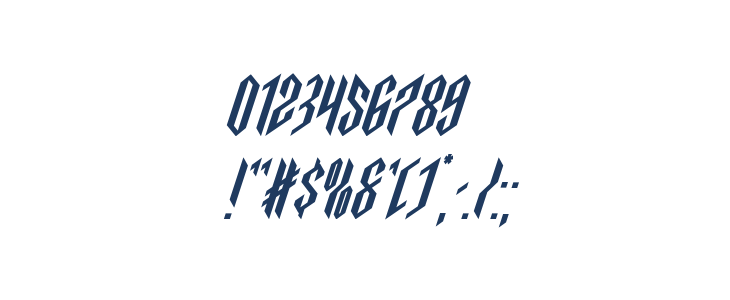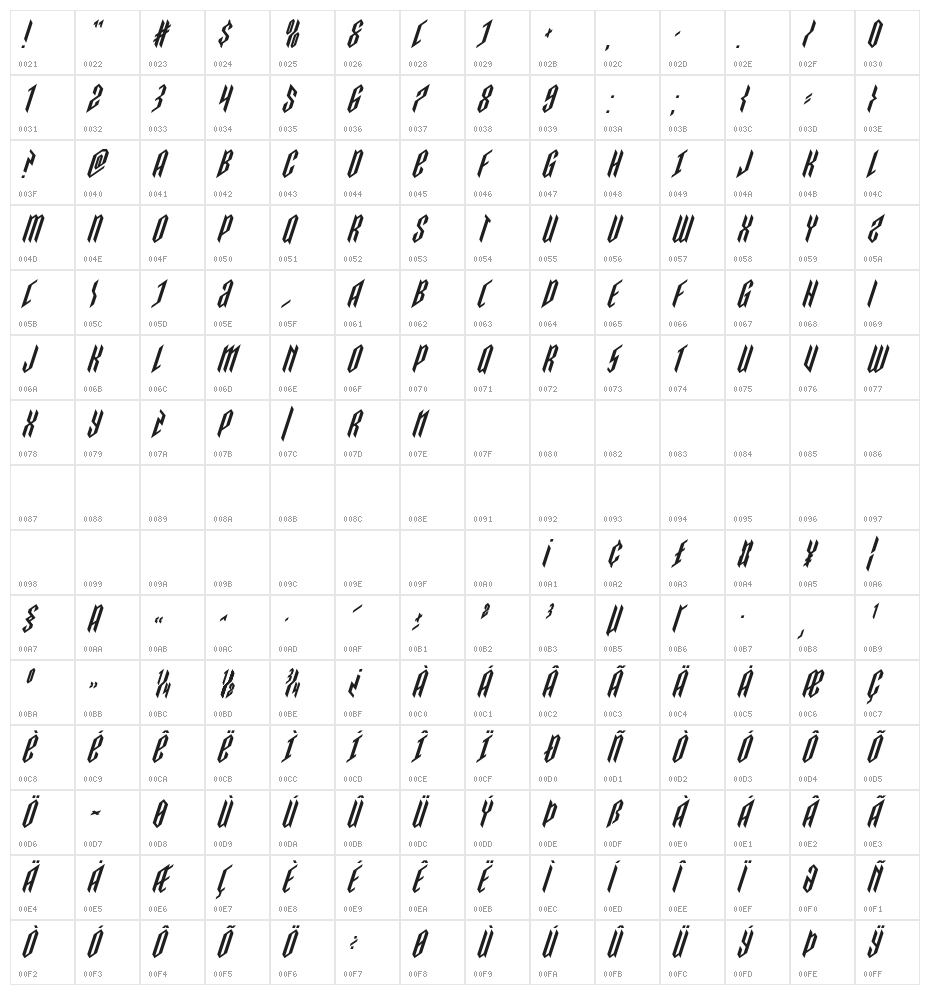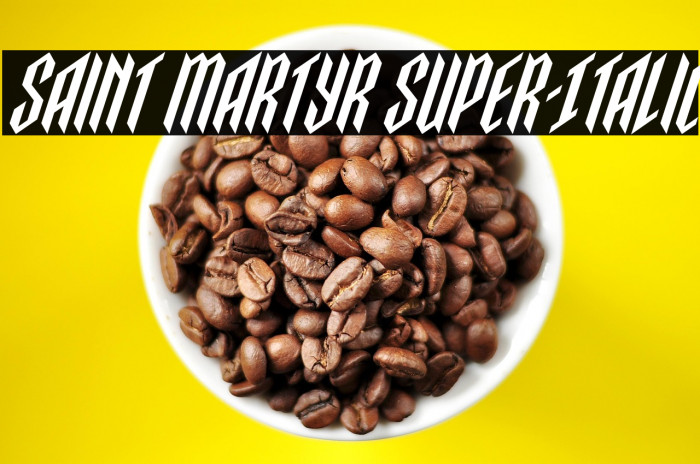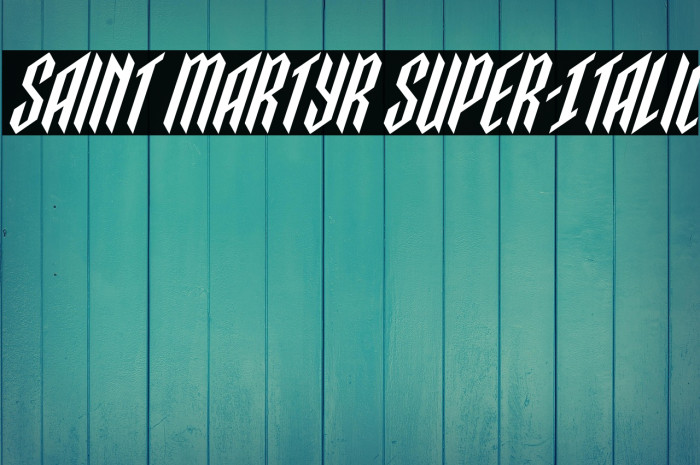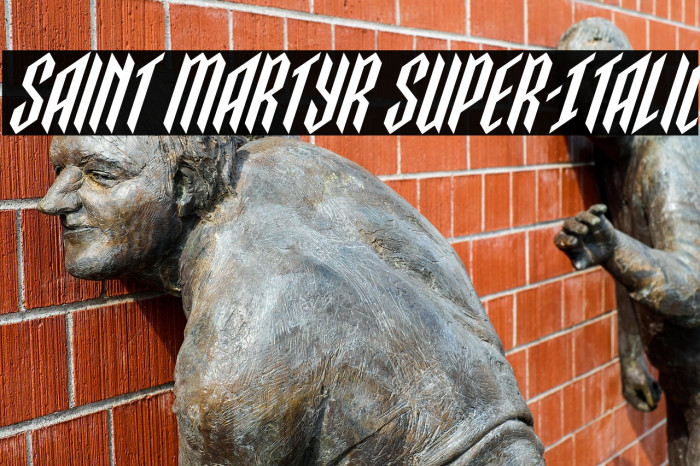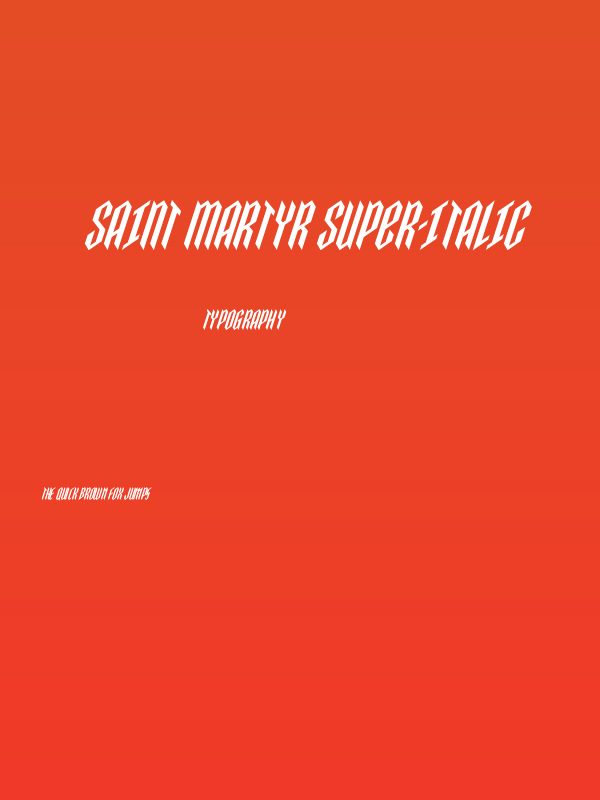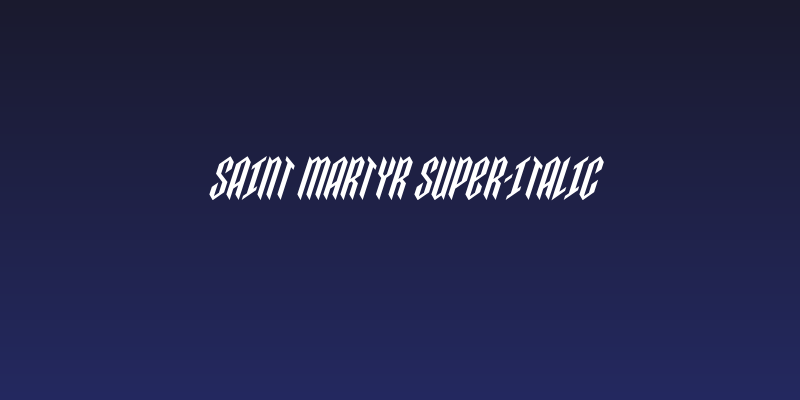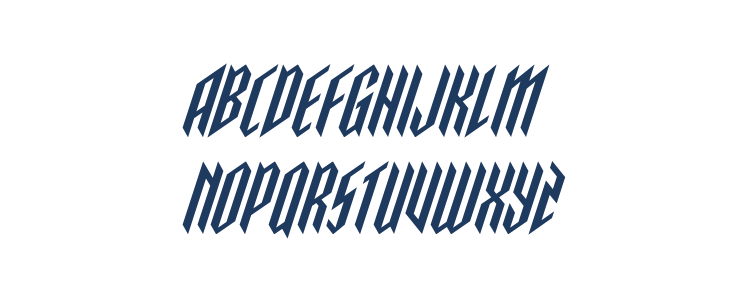
Saint Martyr Super-Italic Font
Saint Martyr Super-Italic Description
This font features a bold and dynamic italic style with sharp, angular edges that give it a modern and edgy appearance. The characters are slanted, enhancing the sense of motion and energy. The uppercase and lowercase letters maintain a consistent style, with a strong emphasis on diagonal lines and pointed terminals. The numerals and special characters follow the same design principles, ensuring uniformity across the typeface. The overall look is striking and impactful, making it suitable for attention-grabbing designs.